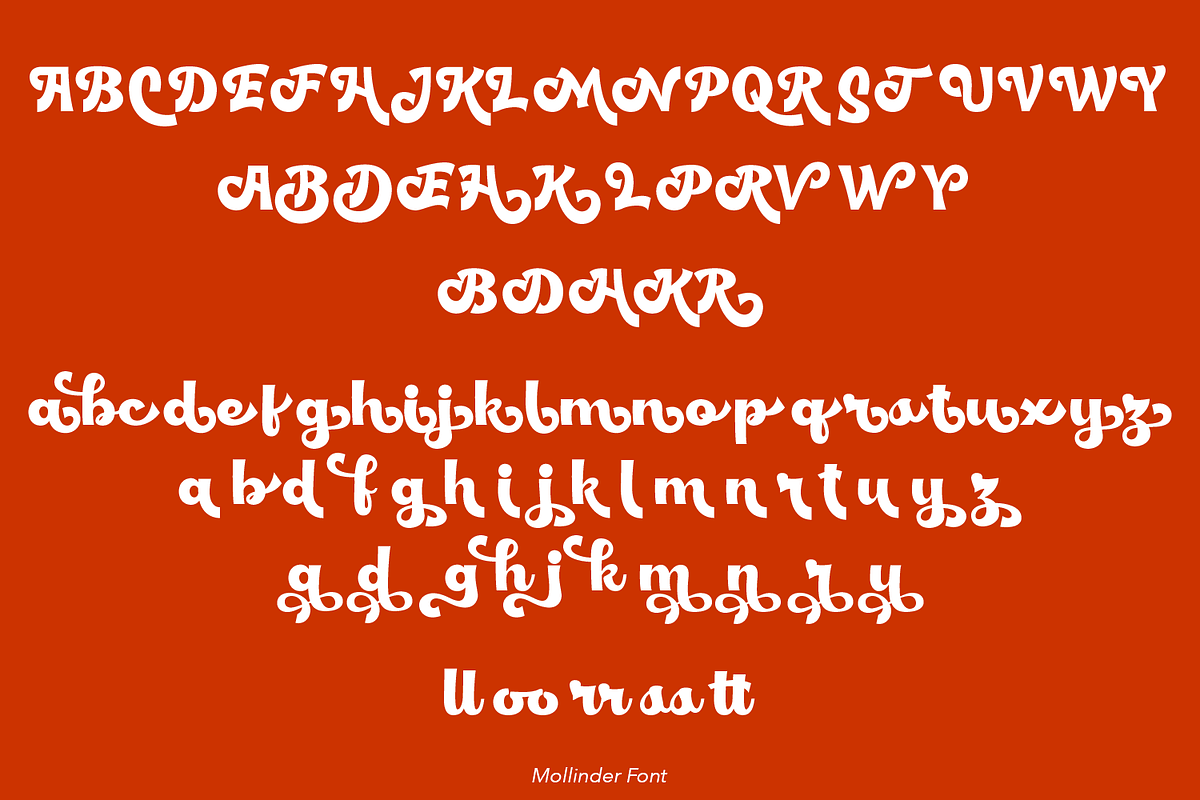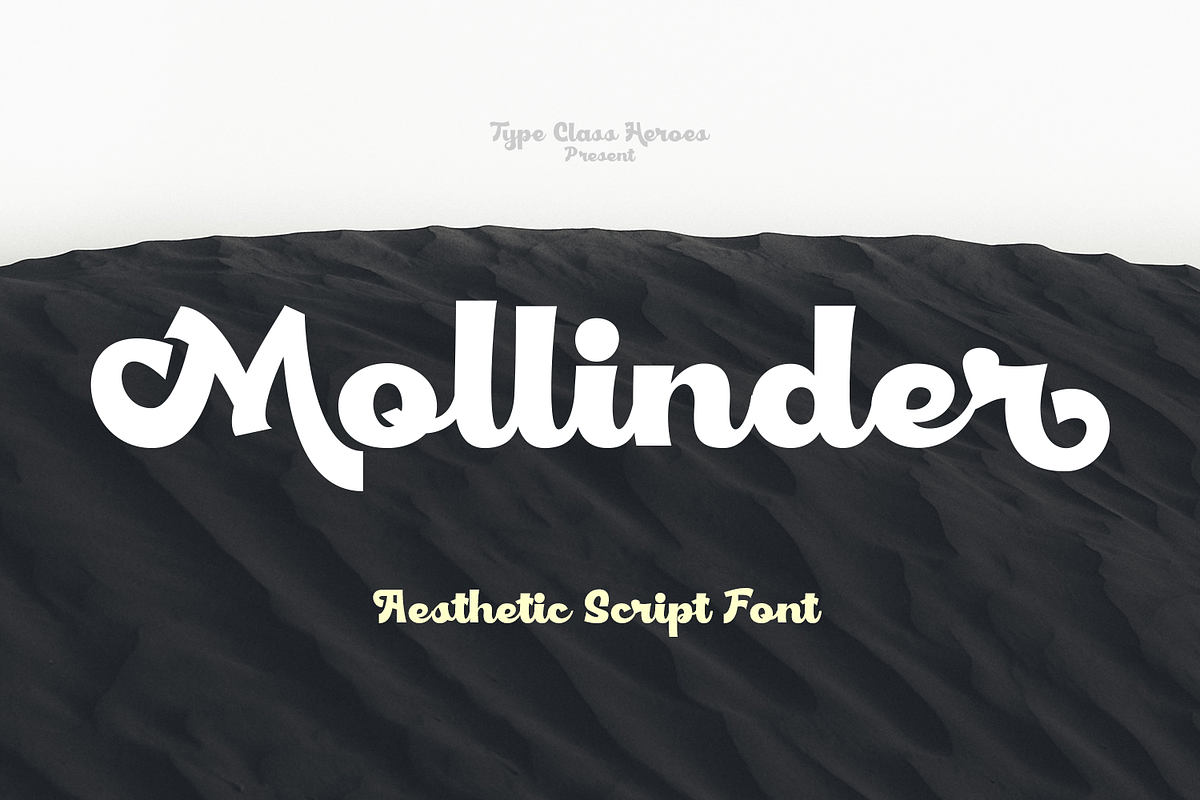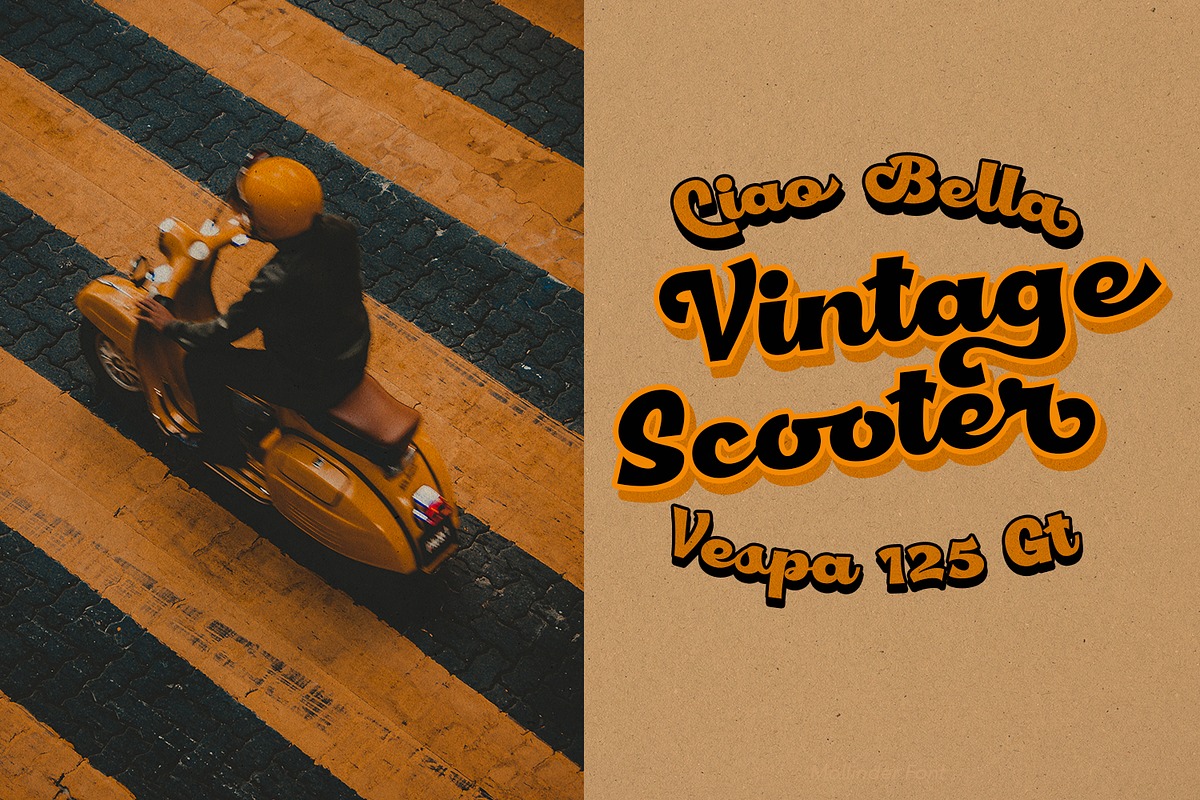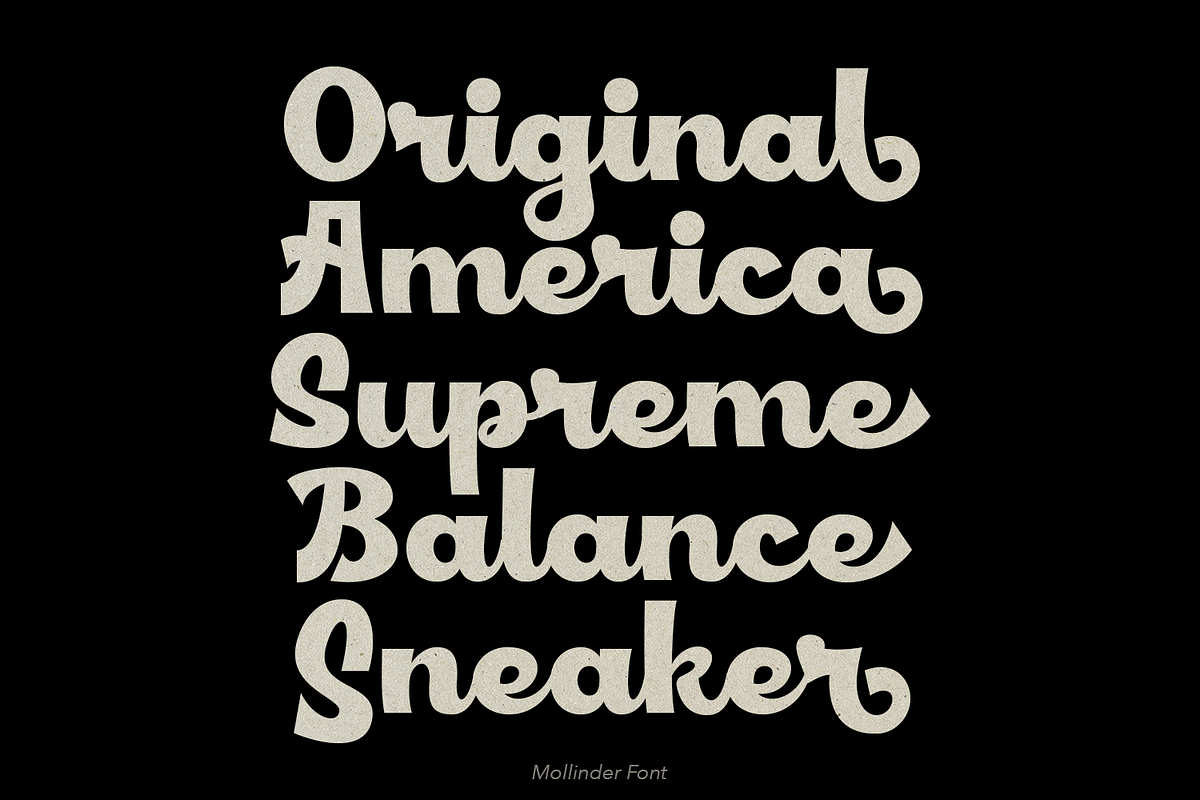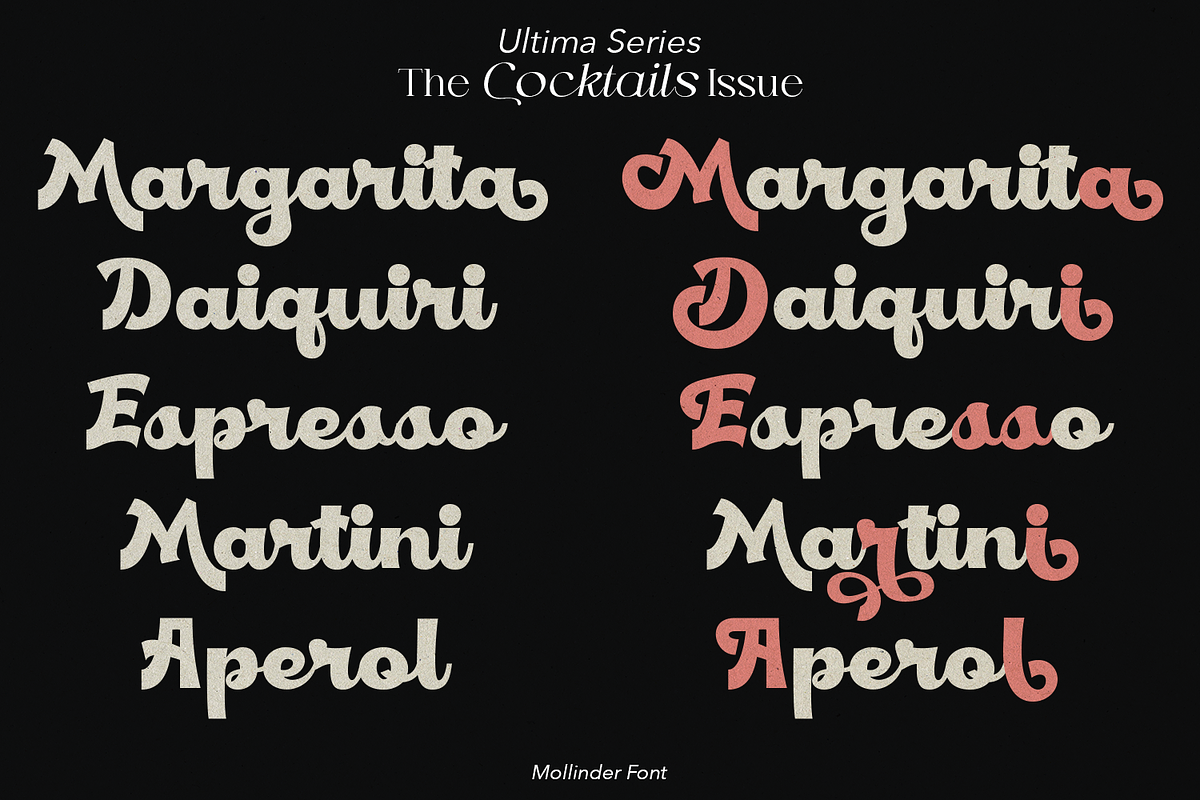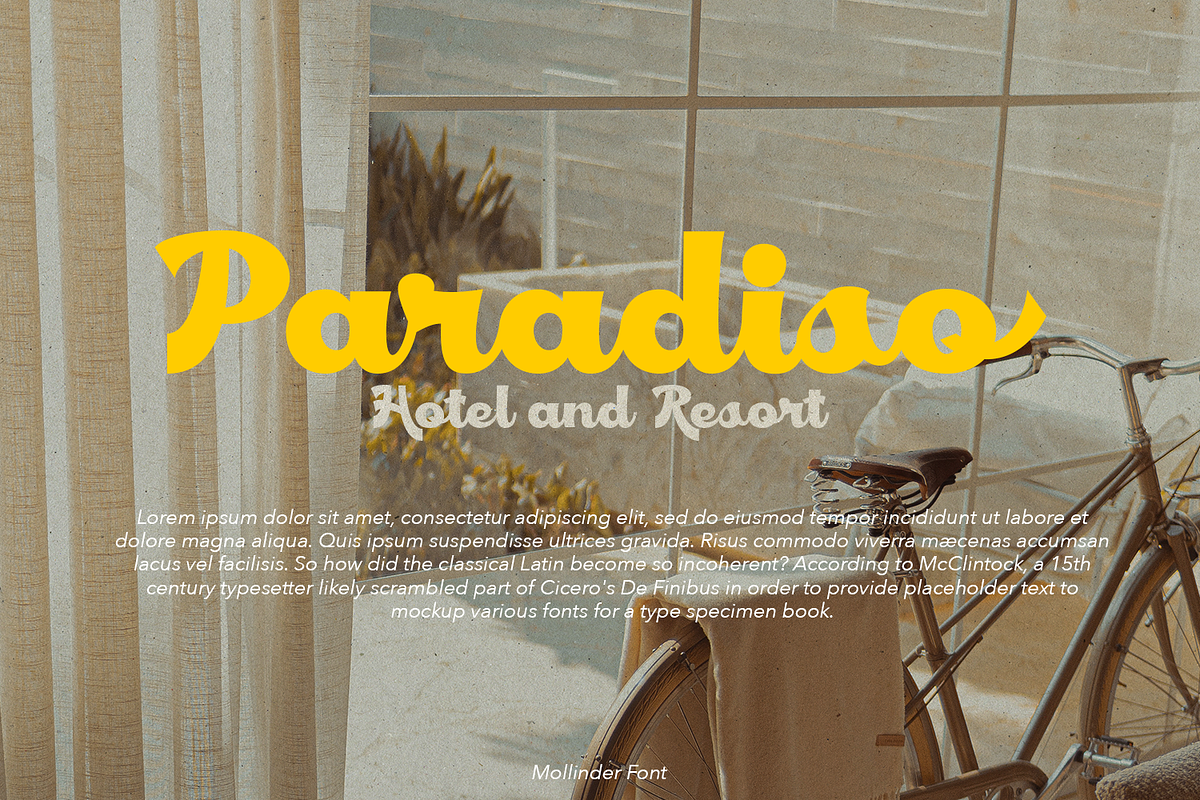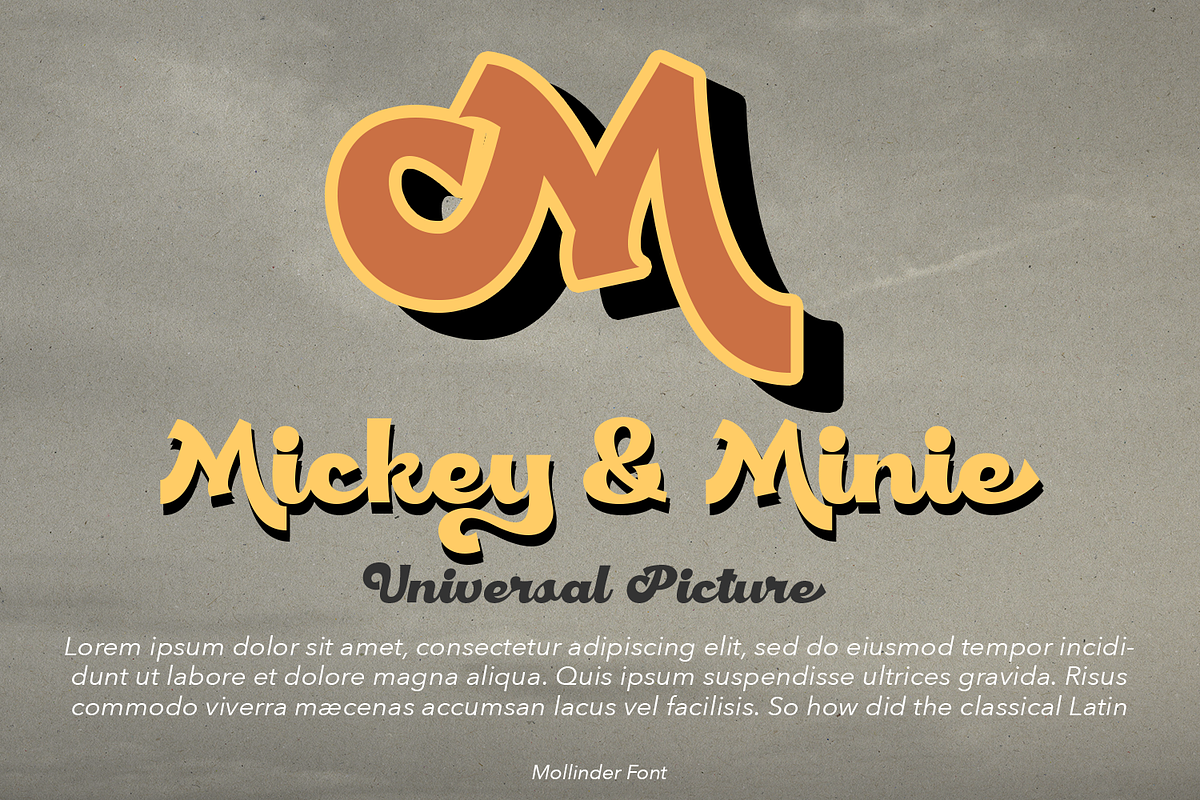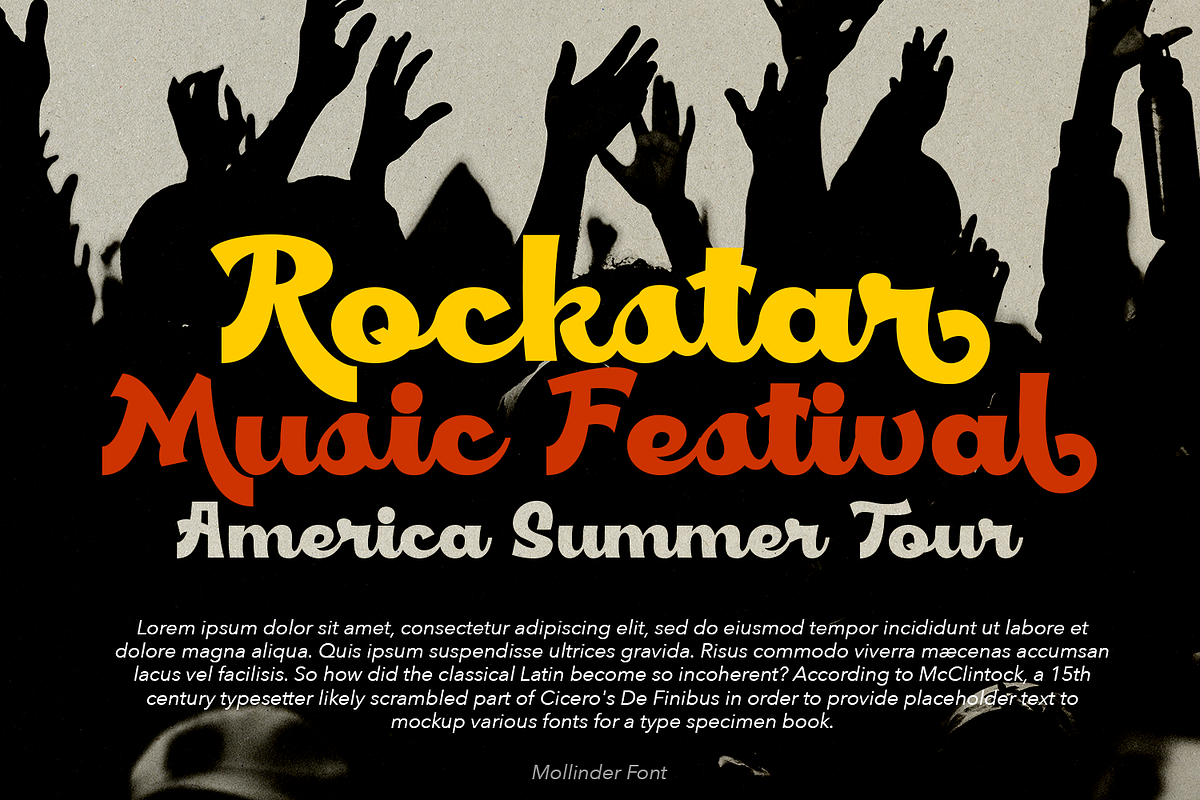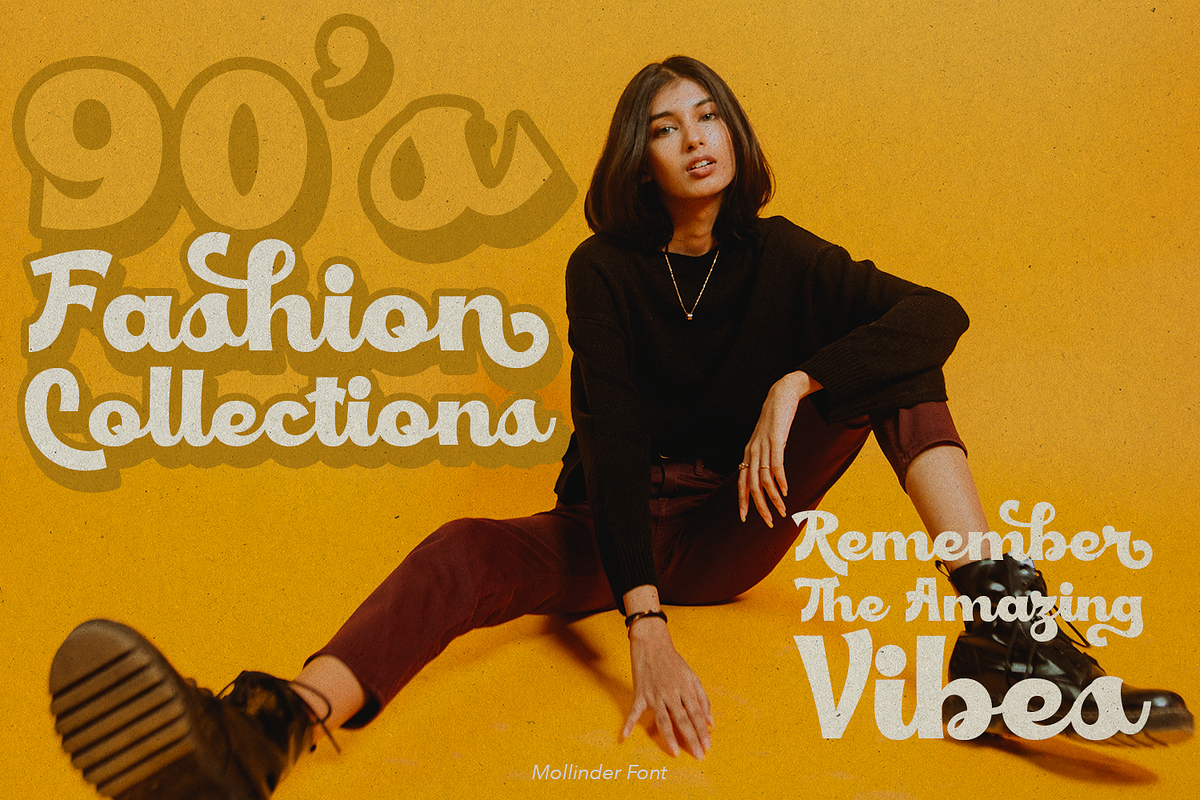
Mollinder Font
Mollinder is a Aesthetic script come with retro and refined style, you can explore and combine creating rhythm for comfortable reading.